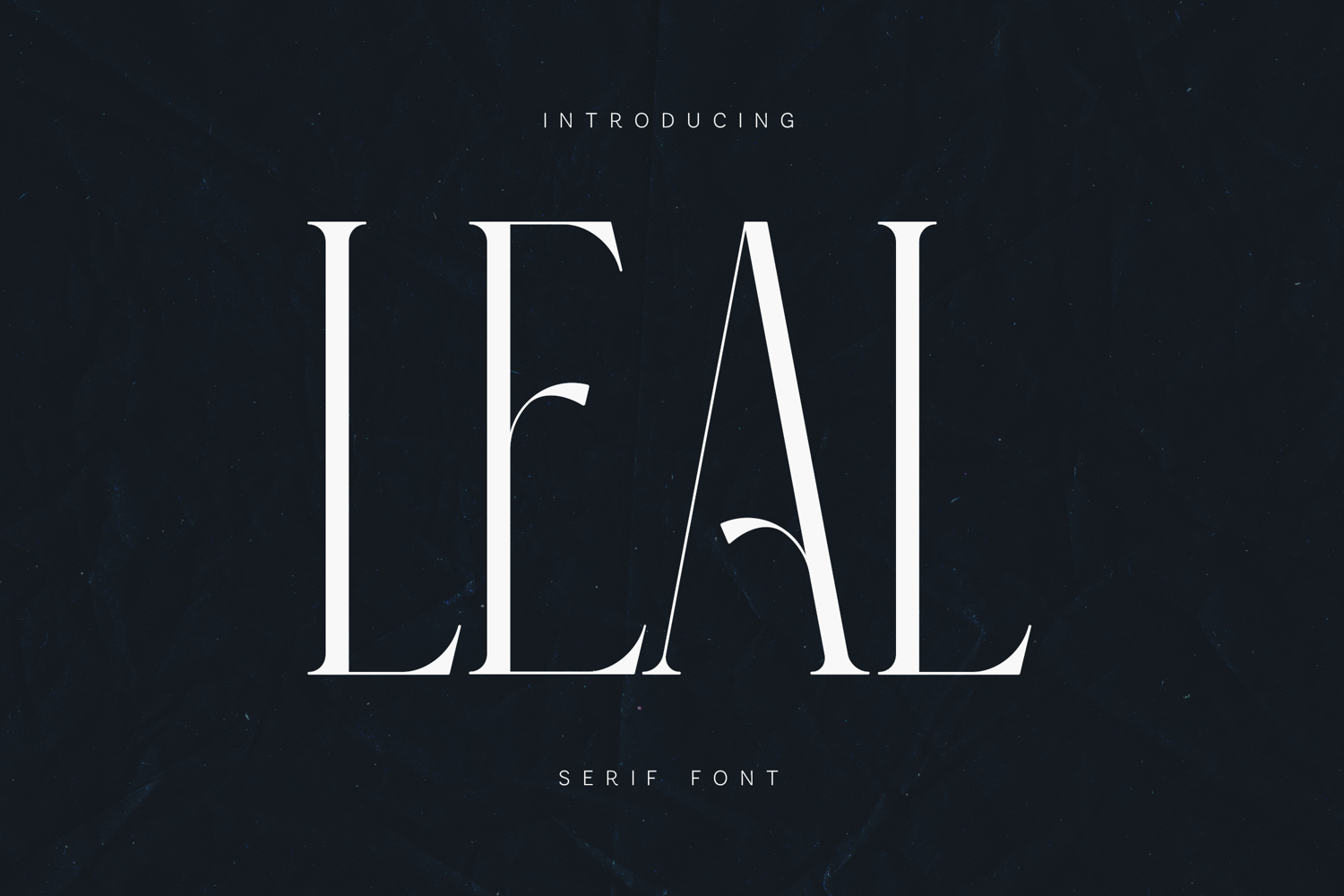
LEAL Elegant Modern Serif Font
LEAL is a refined modern serif typeface designed with graceful proportions, tall letterforms, and delicate contrast between thick and thin strokes. The design blends classic typographic elegance with contemporary minimalism, resulting in a sophisticated typeface that feels both timeless and modern.
The letterforms are carefully crafted to create a sense of rhythm and visual harmony. High contrast strokes, elegant curves, and sharp serifs give LEAL a distinctive personality while maintaining excellent readability. Subtle details within the characters create a luxurious typographic atmosphere that elevates any composition.
LEAL is particularly well suited for projects that require elegance, clarity, and visual refinement. The tall proportions and clean spacing allow the font to perform beautifully in large typographic compositions, editorial layouts, magazine headlines, branding systems, and high-end visual identities.
The typeface carries a modern editorial aesthetic inspired by fashion typography, luxury magazines, and contemporary publishing design. Its slender structure and expressive curves create a striking presence in titles and headlines while still maintaining balance and sophistication.
Because of its refined structure, LEAL works especially well for:
• editorial layouts
• magazine headlines
• elegant logo design
• branding identities
• luxury packaging
• fashion typography
• minimalist layouts
• poster design
• modern advertising compositions
• cinematic titles
LEAL includes a comprehensive character set featuring uppercase letters, lowercase letters, numbers, punctuation, symbols, and multilingual characters, allowing designers to create consistent typography across many languages and international design projects.
With its elegant structure, refined details, and modern editorial character, LEAL is a versatile serif typeface designed to bring sophistication and clarity to contemporary typography.